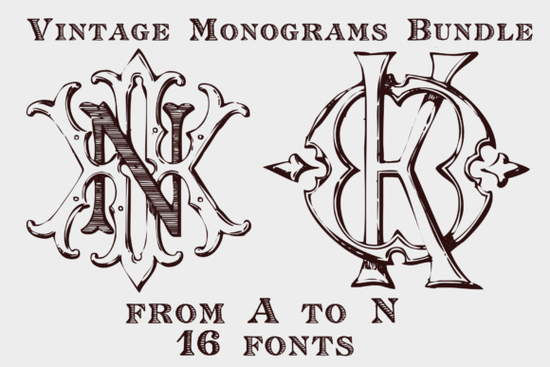
If you’ve ever wanted to add a touch of old-world charm to your designs, the Vintage Monograms Pack Font might be exactly what you’re looking for. Whether you’re personalizing wedding invitations, designing logos for boutique brands, or creating custom merchandise, this collection gives you nearly 1,000 monogram variations with styles pulled from Victorian elegance, Art Nouveau curves, and even medieval manuscript lettering. It’s not just decorative it’s historically rooted, echoing the way kings and nobles once signed their names with unique, stylized initials.
Monograms aren’t new. They’ve been around since ancient times as personalized marks used on seals, documents, and belongings. What makes this pack special is how it revives that tradition with authenticity. You get 16 fonts covering combinations from A to N, plus two additional fonts packed with three-letter monograms perfect for full names or business initials. The characters are large, detailed, and ready to drop into your next project without needing extra editing or scaling.
Who actually uses vintage monograms today?
More people than you’d think. Small business owners use them for branding luxury soaps, leather goods, or stationery. Crafters love them for embroidery patterns, vinyl decals, and laser-cut wood signs. Print-on-demand sellers find them ideal for mugs, tote bags, and phone cases targeting customers who appreciate timeless aesthetics. Even hobbyists working on family trees or heritage projects enjoy the historical weight these letters carry.
If you’ve previously tried modern display fonts like Greek Varsity or Thick Jungle, you’ll notice this pack offers something quieter but more refined a sense of legacy rather than loudness. That doesn’t mean it’s outdated. On the contrary, vintage monograms are having a quiet resurgence in minimalist branding and artisanal packaging.
Can I mix these with other fonts?
Absolutely. These monograms work beautifully as standalone centerpieces or paired with simpler sans-serifs for contrast. Try placing one above a clean line of text set in Junior Play for a playful-yet-classic combo, or let a bold monogram anchor a layout using Grunge Groovy for edgy backgrounds. The key is balance: let the monogram be the focal point, and keep supporting text minimal and legible.
What if I need more than A–N?
The pack focuses on combinations starting with letters A through N, which covers a wide range of common first initials. For three-letter options, the bonus fonts include broader combinations, so you’re not limited to just two-character pairings. If you regularly design for clients whose names start with O–Z, consider layering single letters from another vintage-style font to mimic the same aesthetic. Or reach out to the designer they sometimes release expansions based on user feedback.
For those curious about the historical roots mentioned in the description, you might enjoy reading up on Vintage Monograms Pack Font’s inspirations from royal wax seals to illuminated manuscripts. Knowing the backstory helps you explain the value to clients or customers who appreciate craftsmanship with meaning.
Start simple. Pick one monogram, place it on a blank canvas, and see how it feels. Sometimes the most elegant designs come from letting a single beautiful letter do all the talking.